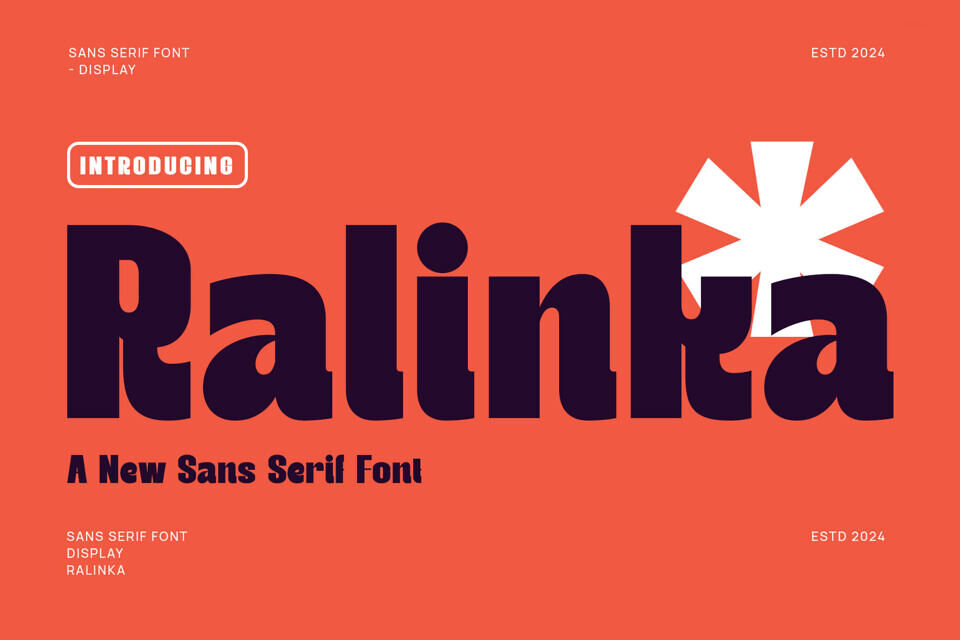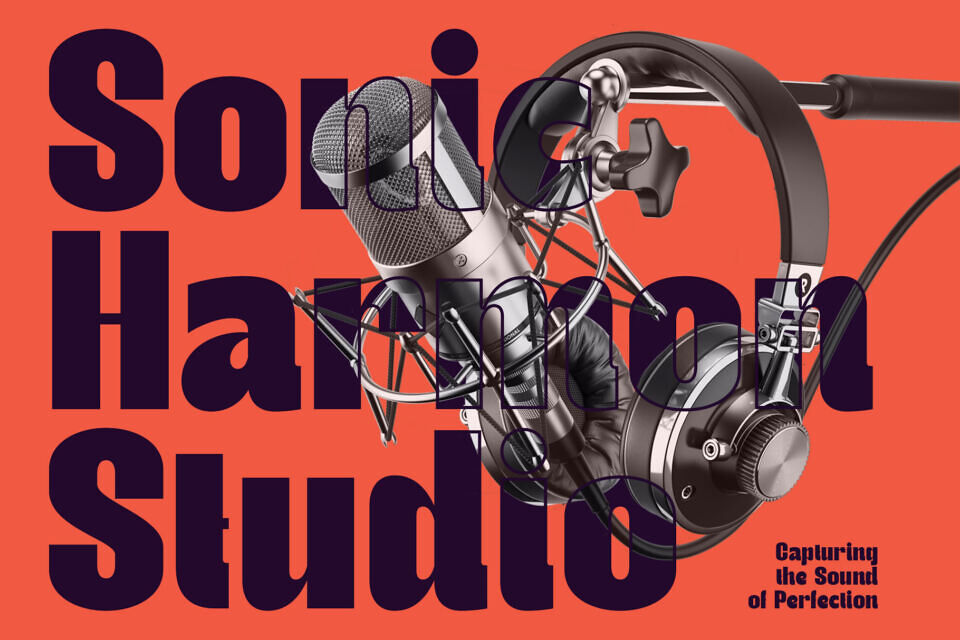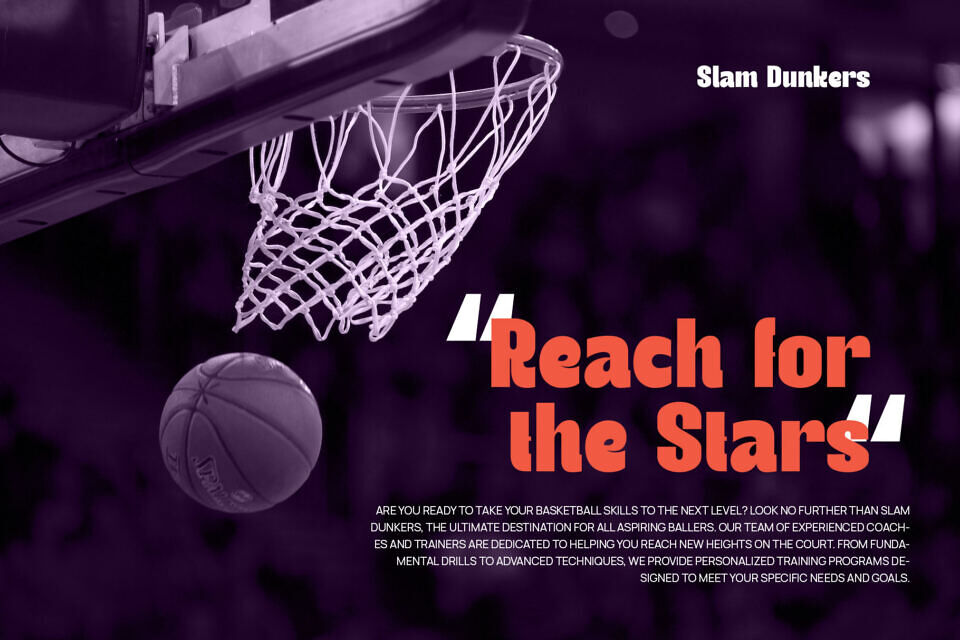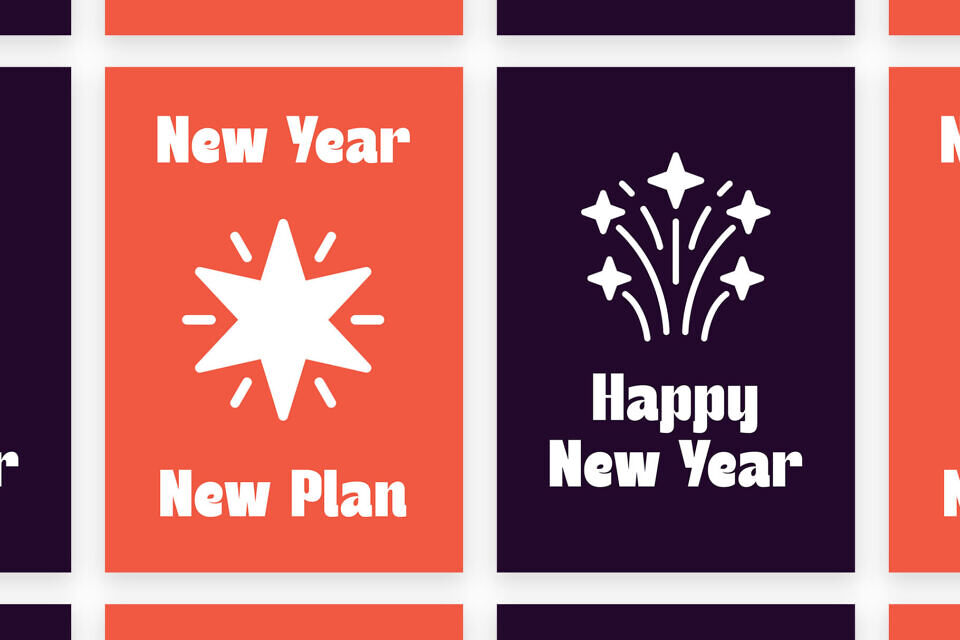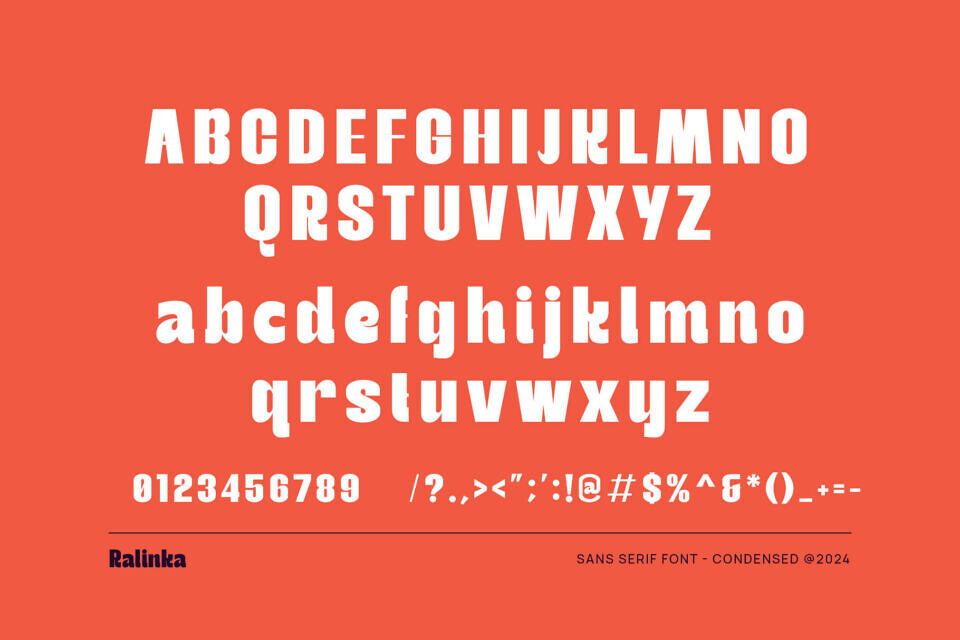
Ralinka Font
Introducing Ralinka by TypeLogue Studio, modern sans serif font with elegant style this is perfect for branding, logos, invitation, magazines, product packaging and more.
Designed by: TypeLogue Studio